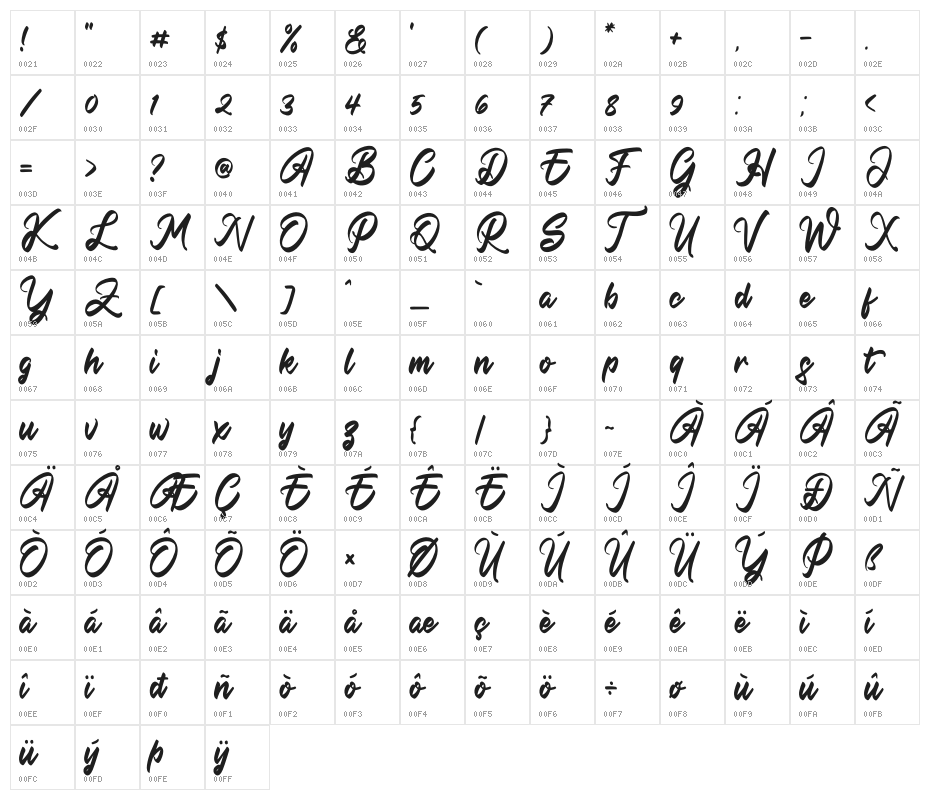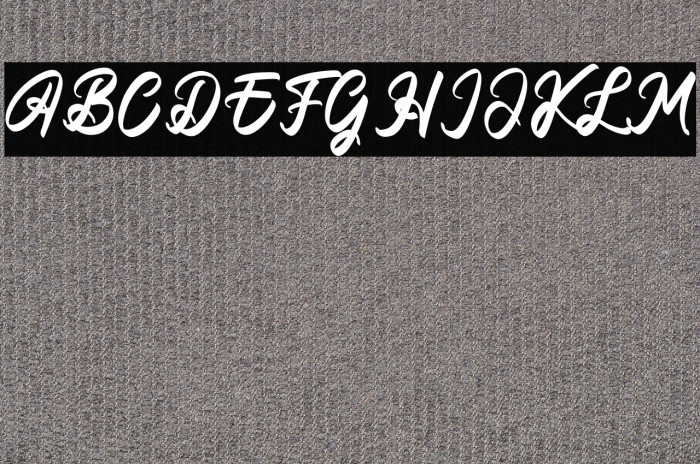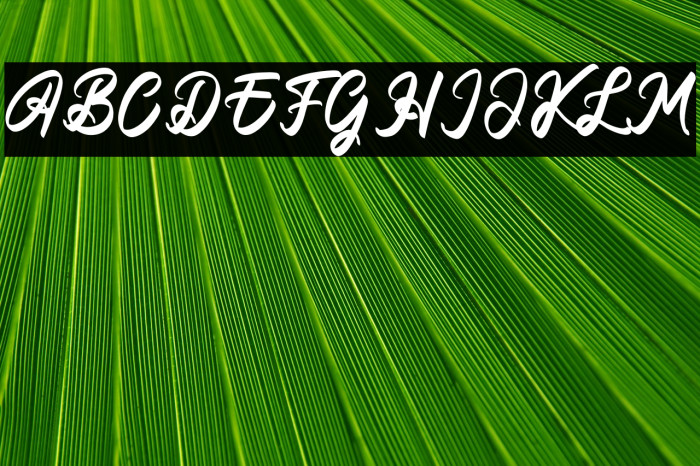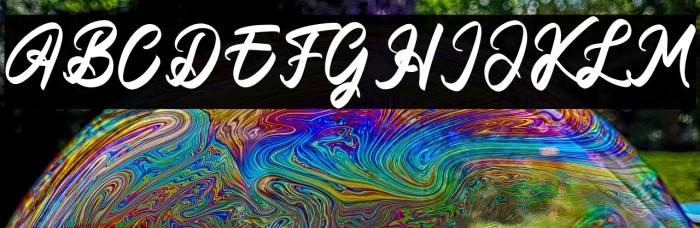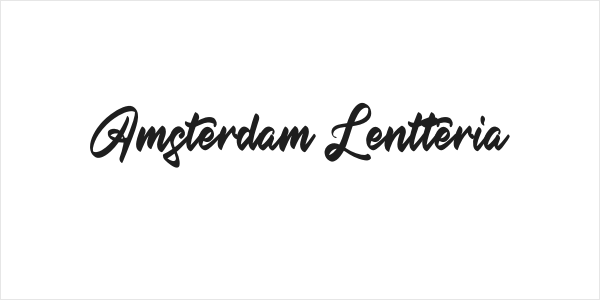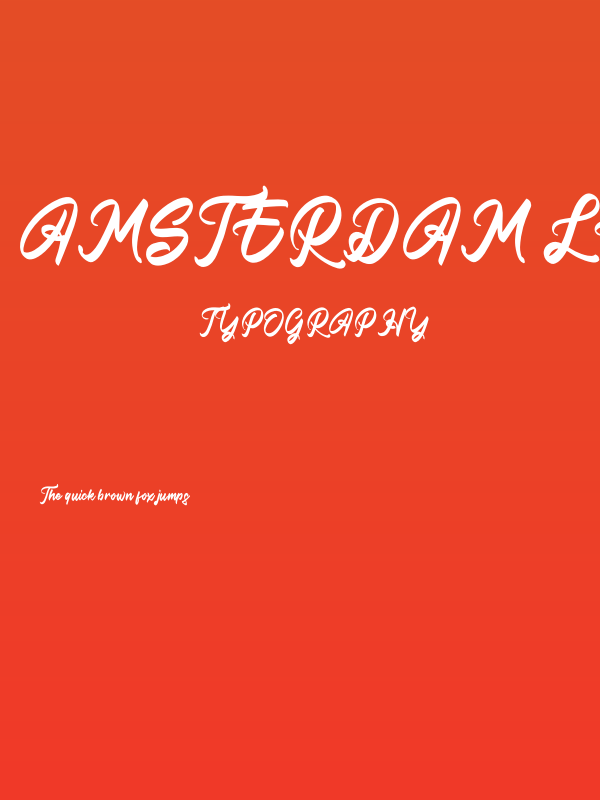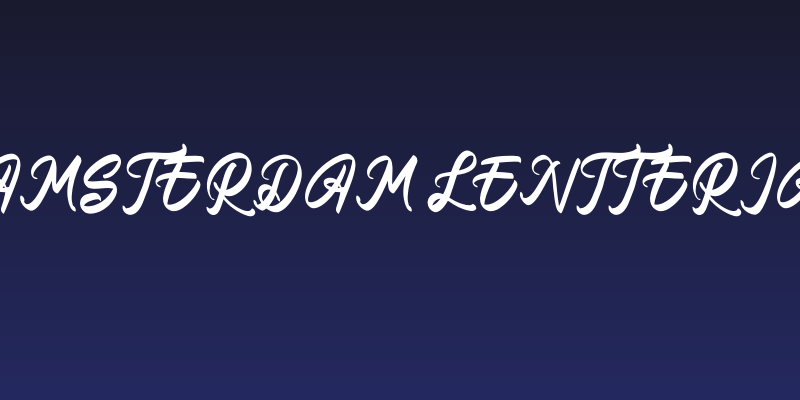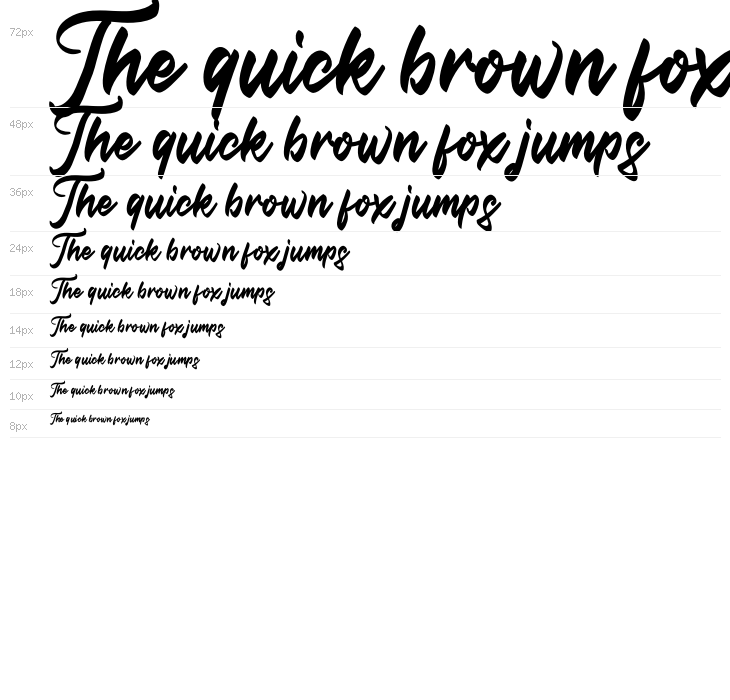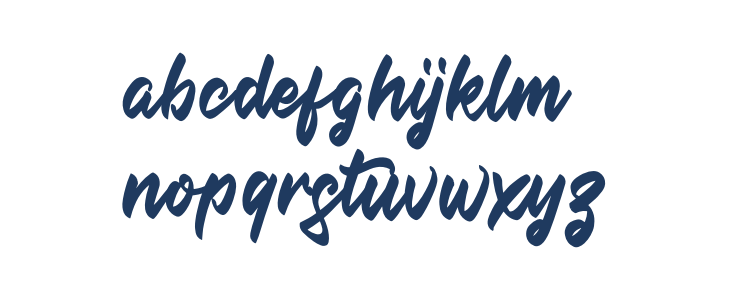
Amsterdam Lentteria Font
Amsterdam Lentteria Description
This font features a dynamic and flowing script style, characterized by its elegant and cursive letterforms. The uppercase letters exhibit a graceful, looping design, while the lowercase letters maintain a consistent fluidity, enhancing the overall aesthetic. The numerals and special characters are crafted with the same attention to detail, ensuring a cohesive look throughout. The font's bold strokes and smooth curves make it ideal for creating a sense of sophistication and style. Its versatility allows it to be used in a variety of design contexts, from branding to invitations.